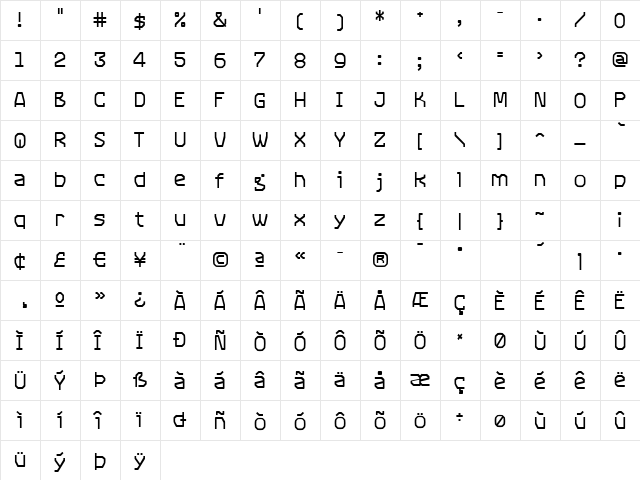
RangeMedium Regular
Design Context for RangeMedium Typeface
RangeMedium is a composed and adaptable typeface that performs quietly and consistently across a wide range of design contexts.